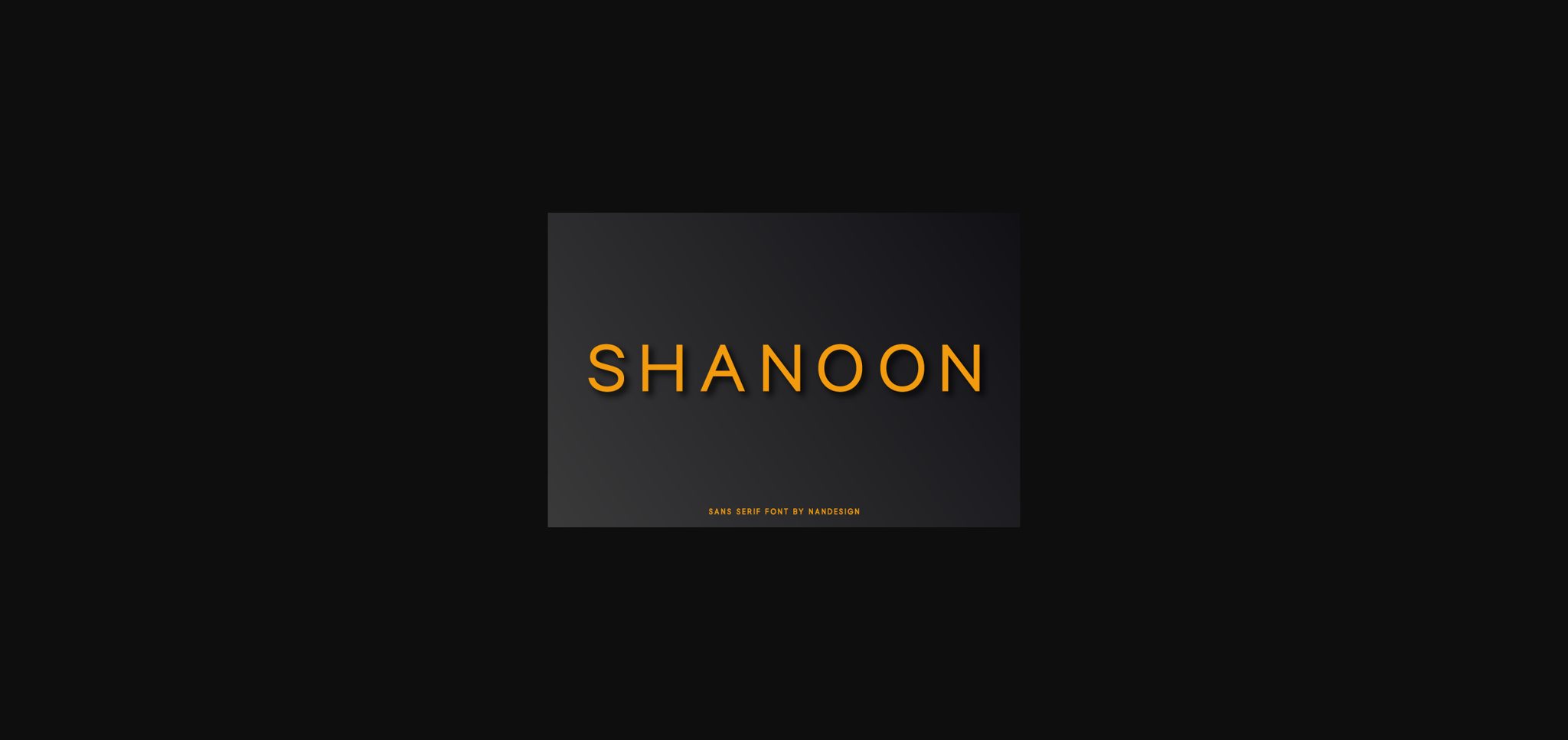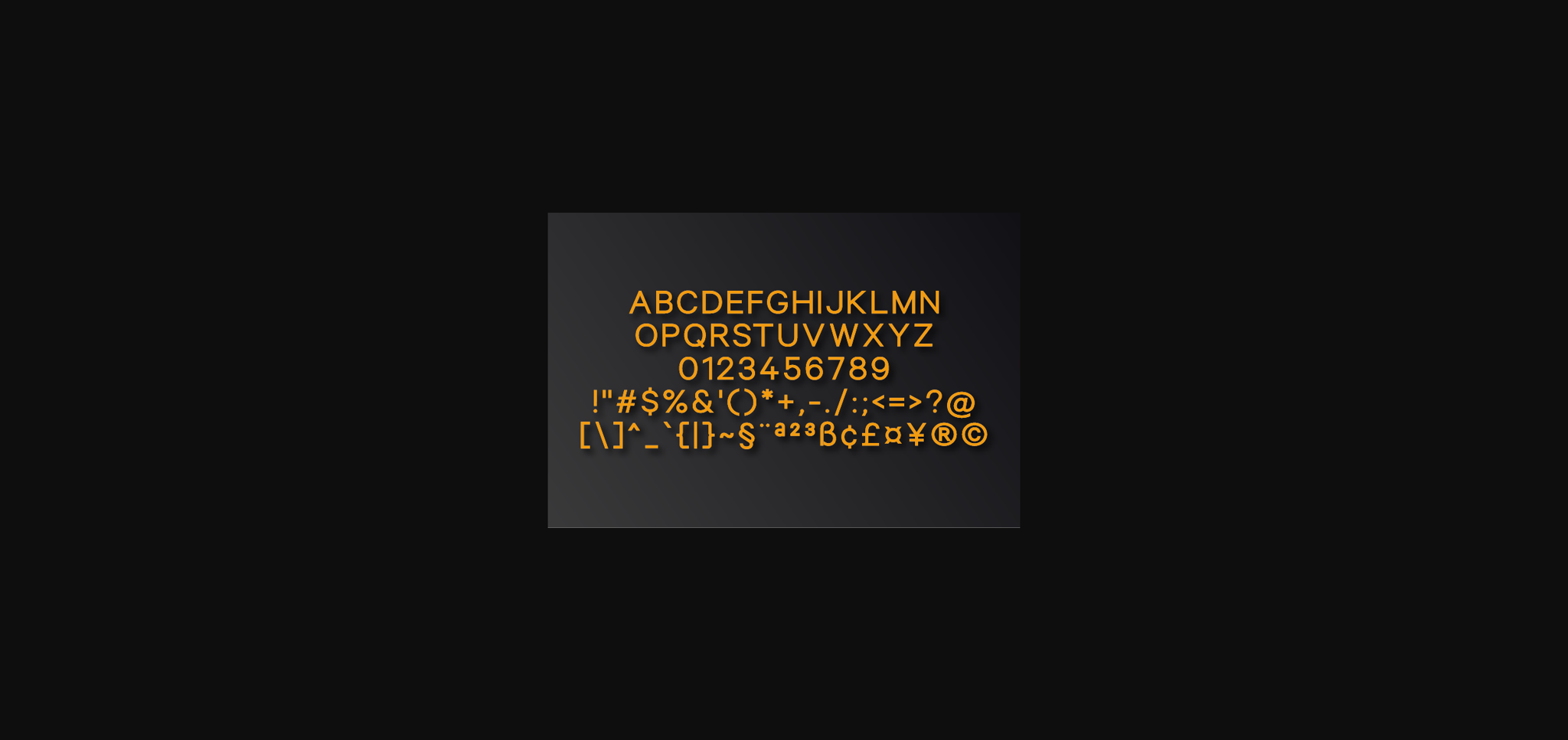
About Shanoon Font
Shanoon is a distinct and elegant sans serif font that blends traditional influences into a contemporary aesthetic. Its well balanced Latin details contain distinctive contrasts. Use Shanoon to achieve an exquisite, yet subtle look and maximum versatility.